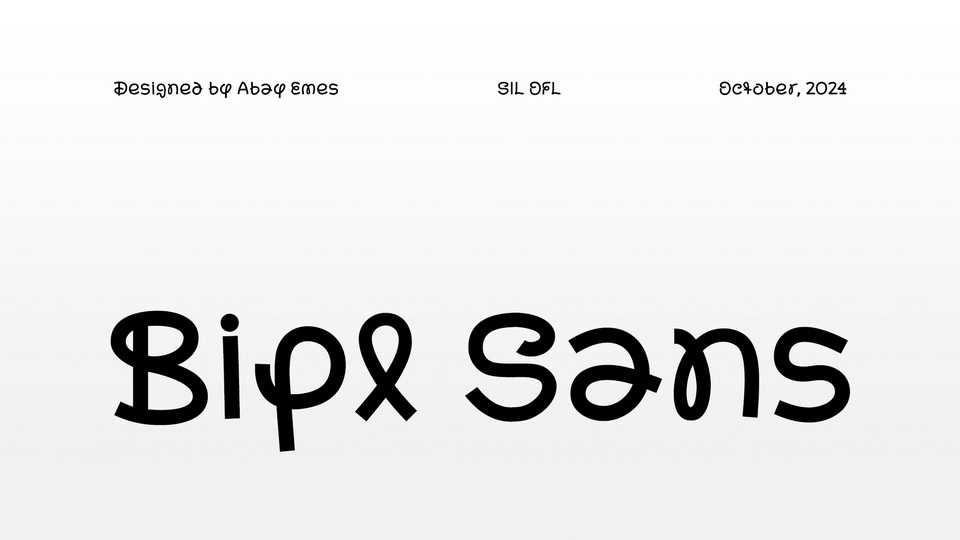
Download Bipl Sans font, a whimsical, hand-crafted typeface full of playful loops and lively twists, perfect for projects that need a quirky, joyful vibe.
Designer: Abay Emes